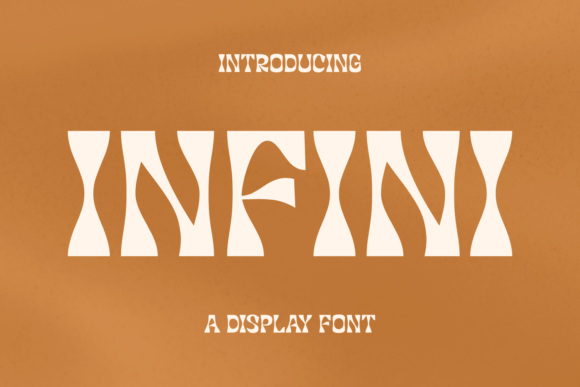
Journey into the realm of boundless creativity with Infini Font, a spectacular display font poised to ignite your imagination and elevate your designs to extraordinary heights! This modern marvel, crafted with the utmost care by Damai (7NTypes), is a meticulous fusion of contemporary aesthetics and a touch of whimsy, ensuring that every letter dances off the page with grace and charm.
Awaken your artistic spirit and embark on a typographic adventure with Infini Font. Its captivating curves and dynamic strokes are designed to leave a lasting impression, transforming your words into captivating visual masterpieces. Embrace the endless possibilities as this font effortlessly blends playful elegance with a touch of sophistication, empowering you to craft designs that resonate with your audience's hearts and minds.
Unleash the full potential of your creative vision with Infini Font. Whether you're crafting captivating magazine covers that demand attention, designing eye-catching logos that leave an indelible mark, or creating stunning social media graphics that ignite engagement, this font is your ultimate weapon in the realm of visual communication. Its versatility knows no bounds, adapting seamlessly to a myriad of design projects, ensuring that your message always shines through with unparalleled clarity and impact.
Indulge in the transformative power of Infini Font and watch as your designs blossom into breathtaking works of art. Its enchanting allure will captivate your audience, leaving them spellbound by the sheer beauty and magnetism of your creations. Embrace the limitless possibilities and redefine the boundaries of design with this extraordinary display font, poised to elevate your projects to dizzying heights of brilliance.